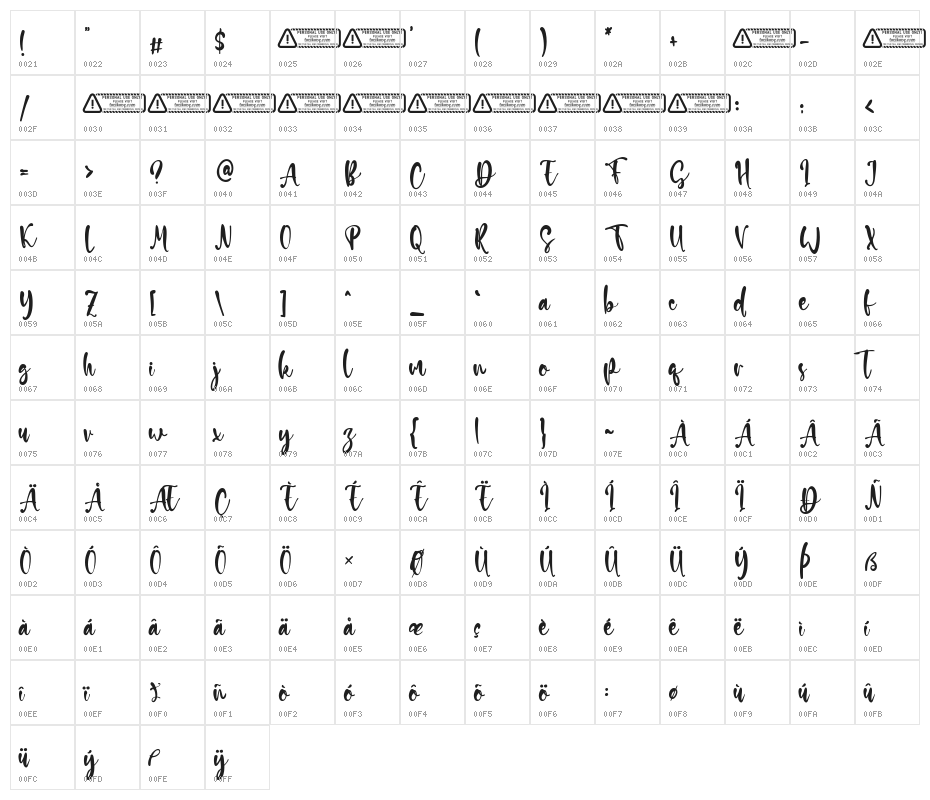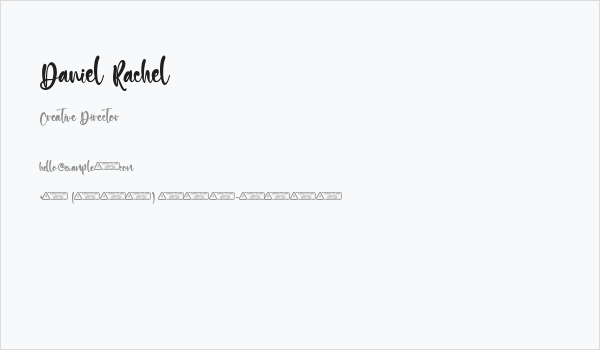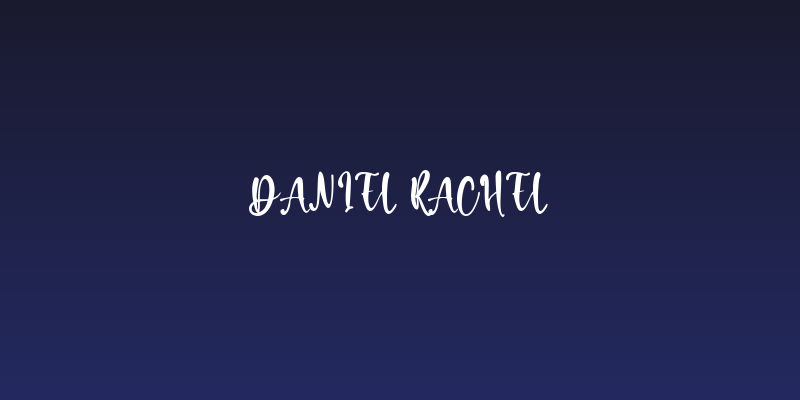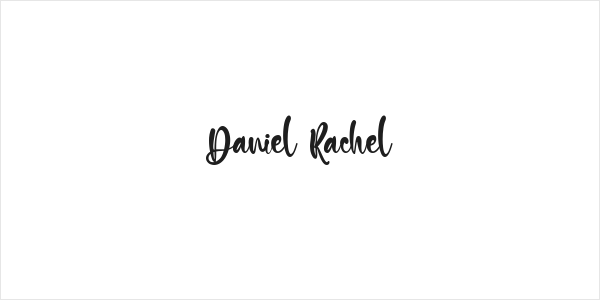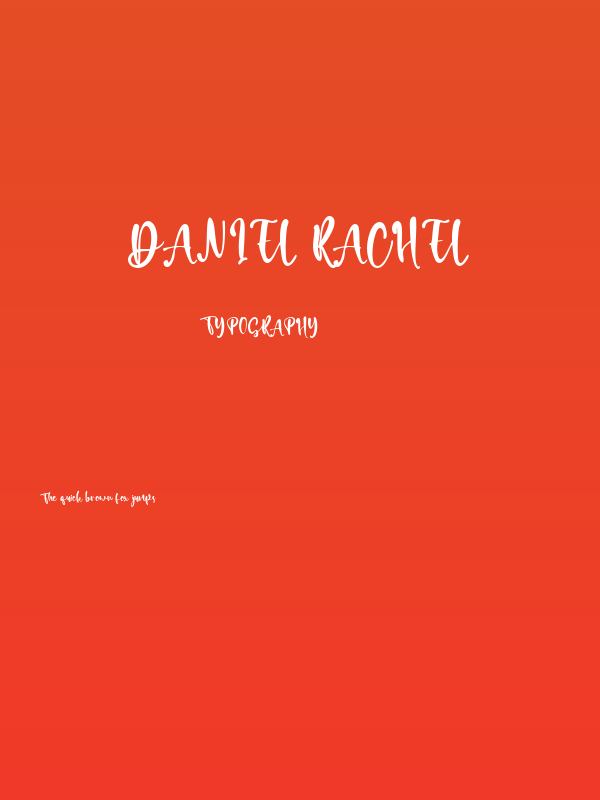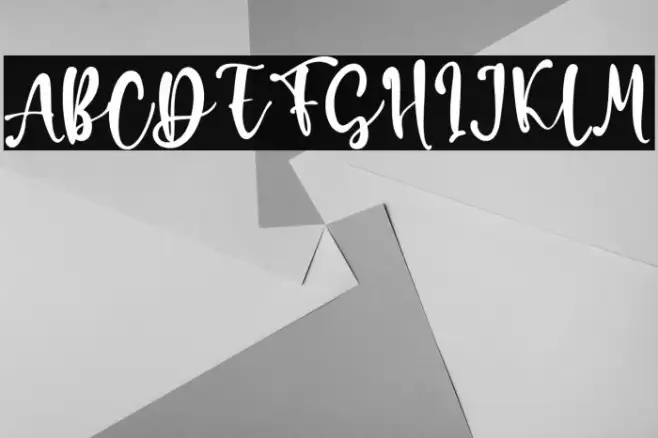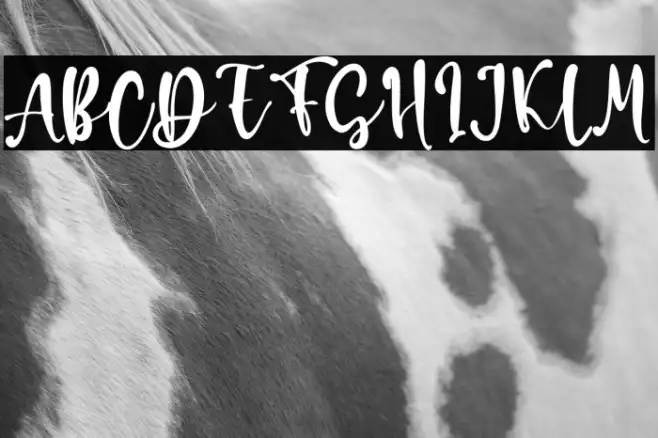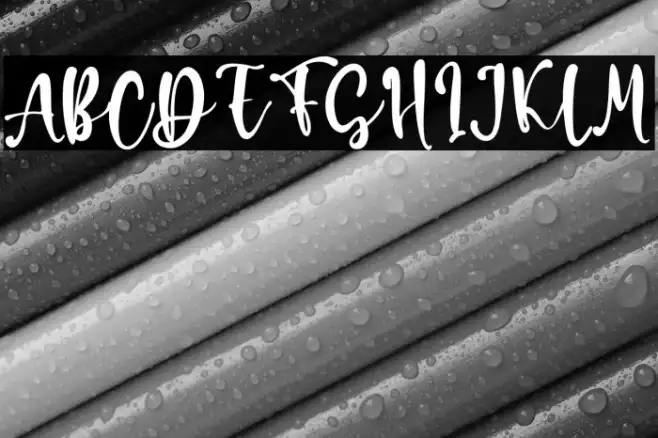
Daniel Rachel Font
Daniel Rachel Description
This font features a lively and expressive handwritten style, characterized by its fluid and dynamic strokes. The uppercase letters are bold and slightly irregular, giving a sense of movement and personality. The lowercase letters maintain a consistent flow, with some characters featuring unique loops and swashes that add to the font's charm. The numbers and special characters are crafted to match the playful and artistic nature of the alphabet. Overall, this font exudes a casual yet sophisticated vibe, making it suitable for creative and informal projects.